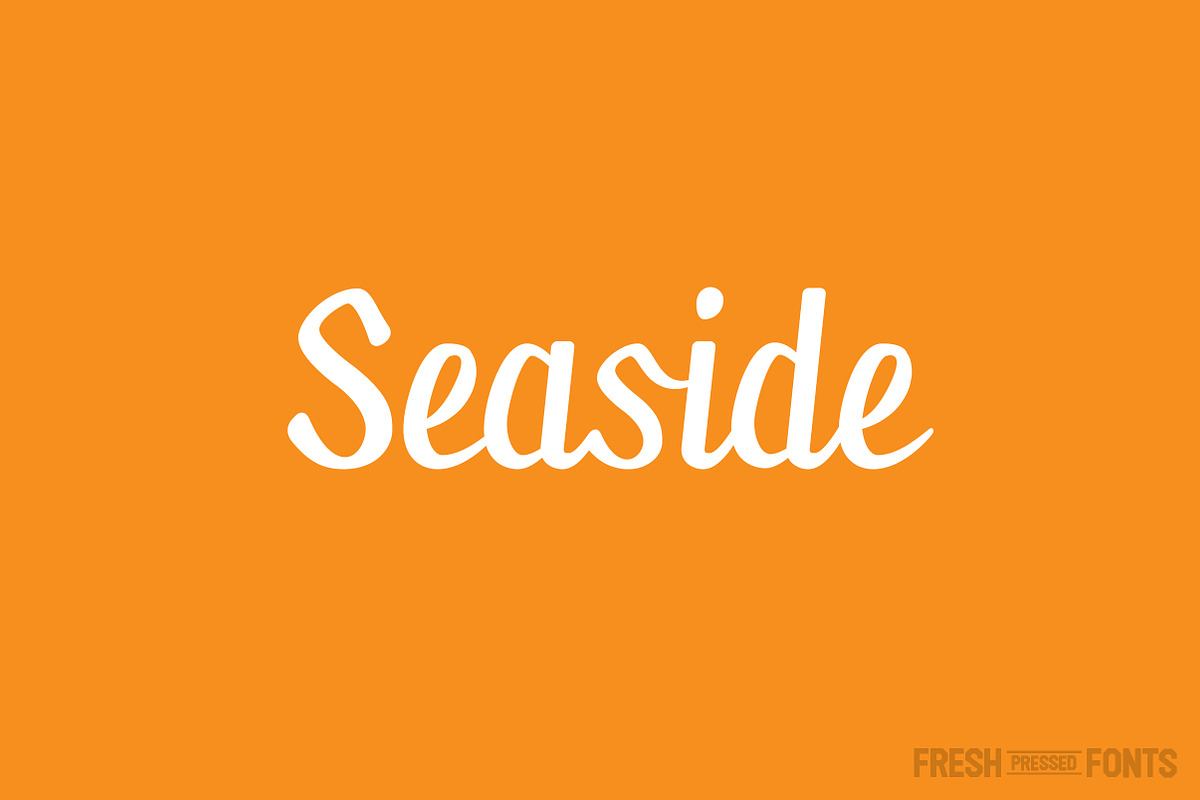
Introducing Seaside Font Free Download, a modern handwritten typeface designed by Letterative Studio. This font features smooth, flowing lines that emulate natural handwriting, making it perfect for product packaging, branding projects, magazines, social media, weddings, or simply to add a personal touch to your designs. The font includes TTF and OTF formats and offers multilingual support. Download Seaside Font Free Download to explore its features in personal projects. For commercial use, please ensure you purchase the appropriate license. Enhance your designs with the elegant and natural appeal of Seaside Font Free Download